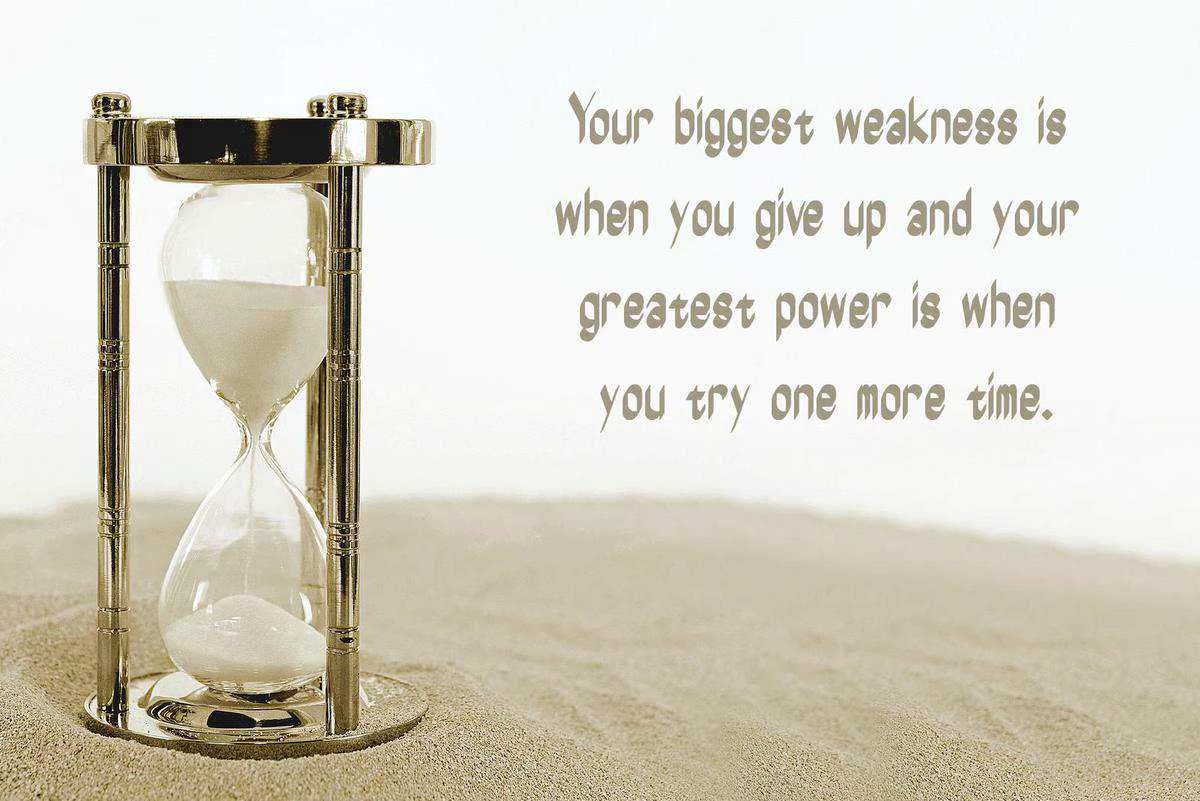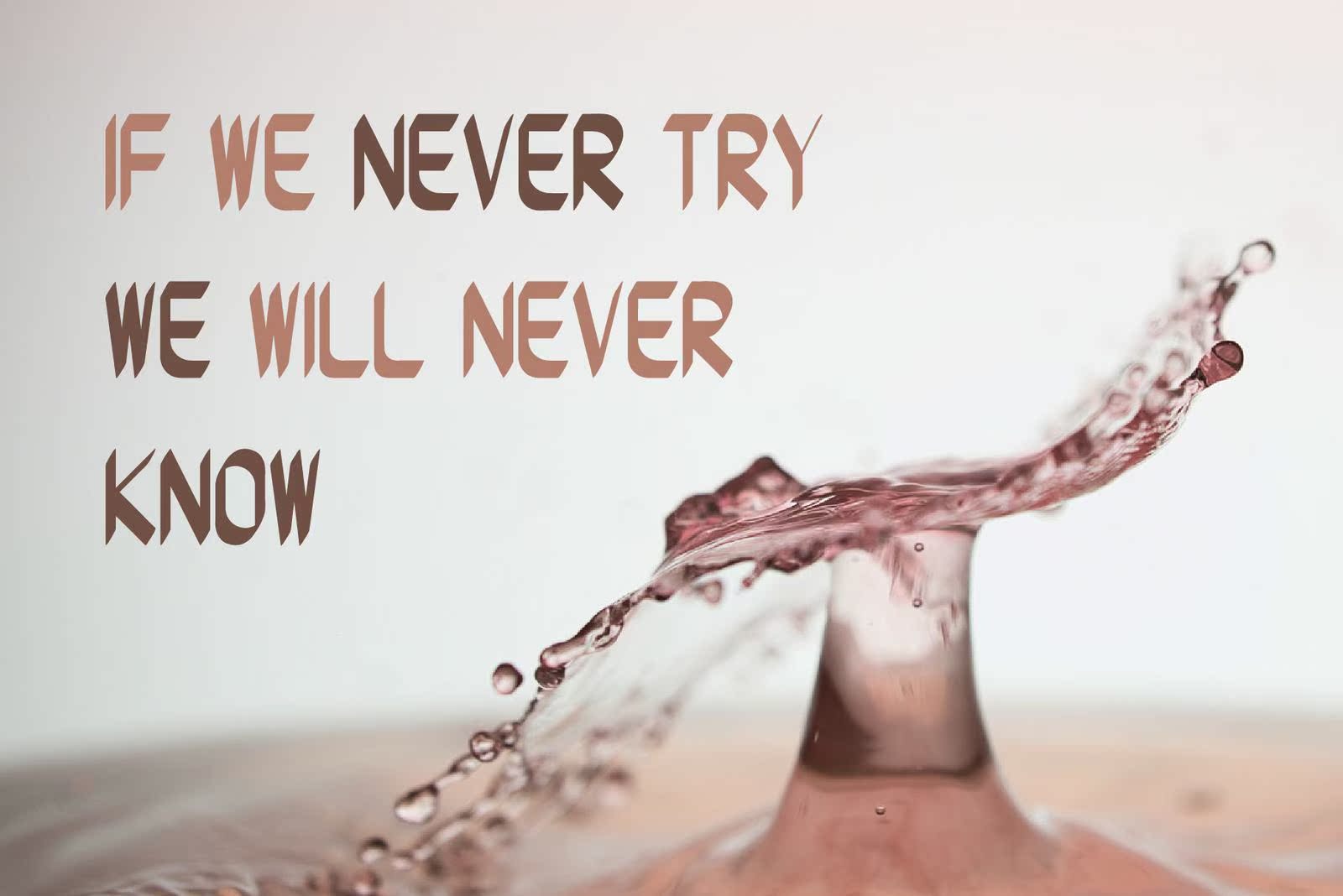
WorflatStyleFont.SetOfMulticoloredBrightLetters刷新说明和YourDesign.VectorillInstruction.Isolatedonwhitebackground.WorflatStyleFont.SetOfMulticoloredBrightLetters刷新说明和YourDesign.VectorillInstruction.Isolatedonwhitebackground。